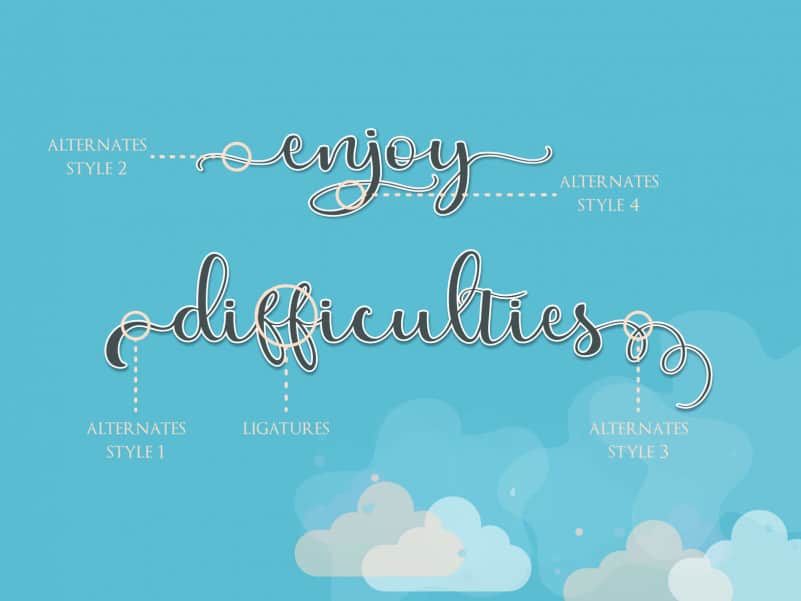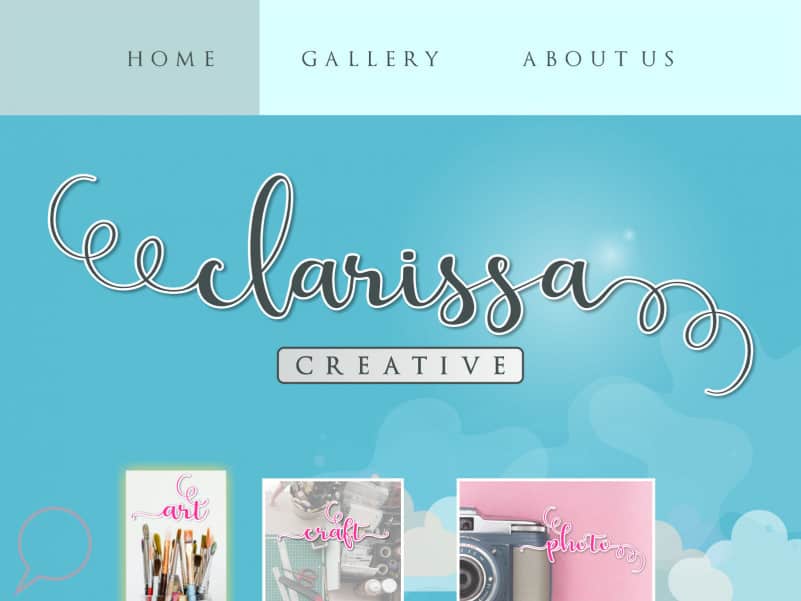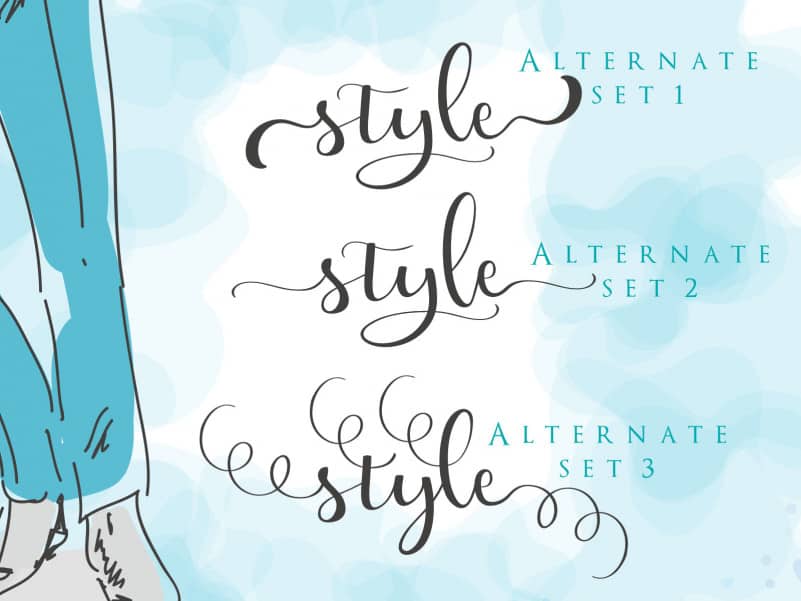
Falling Calligraphy Font
Falling Calligraphy Font is a cute and bouncy handwritten font with an incredibly friendly feel. It features gorgeous swashes and ligatures that make this script incredibly versatile. Whether you’re looking for fonts for Instagram or calligraphy scripts for DIY projects,Falling will turn any creative idea into a true piece of art!